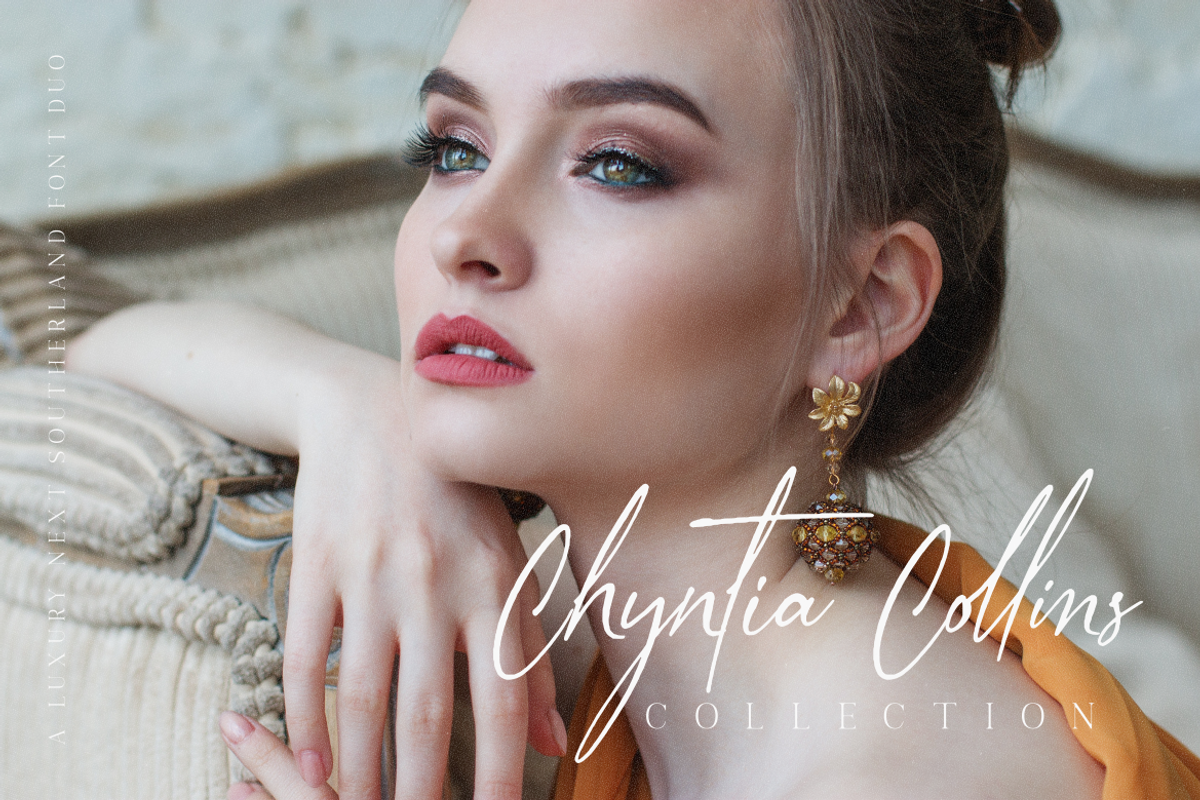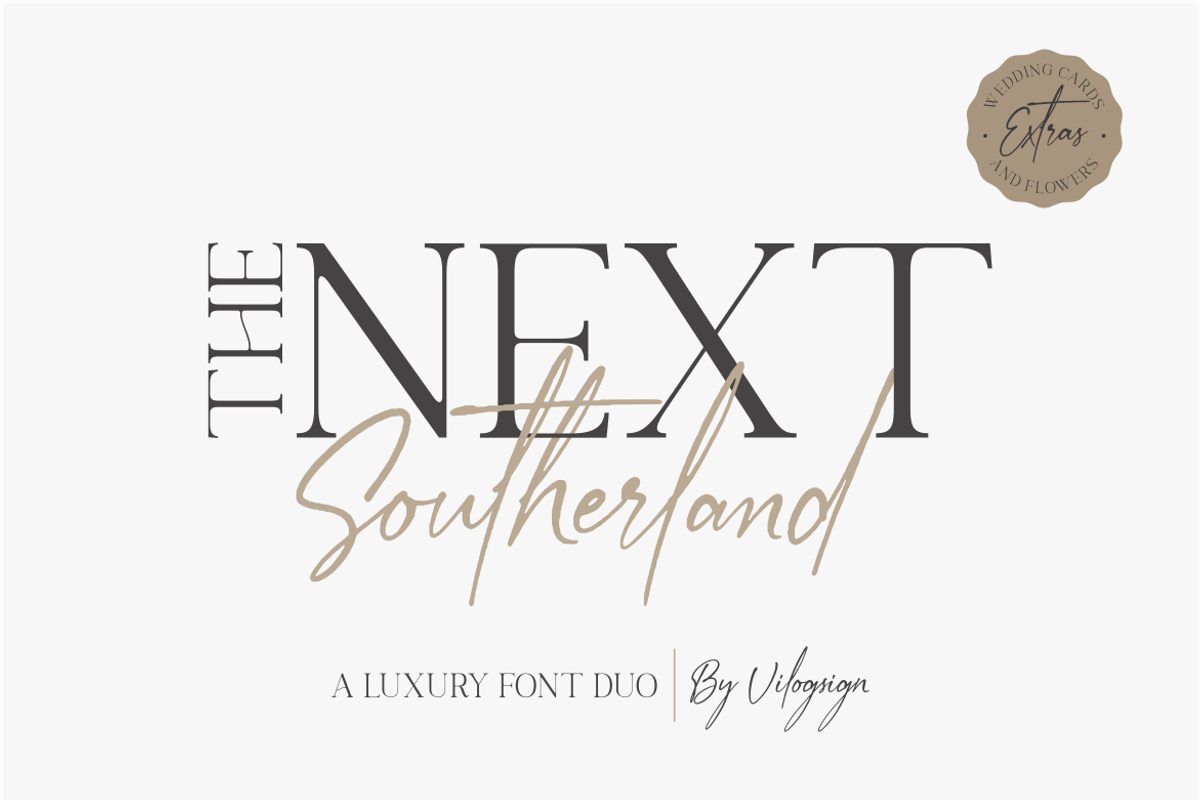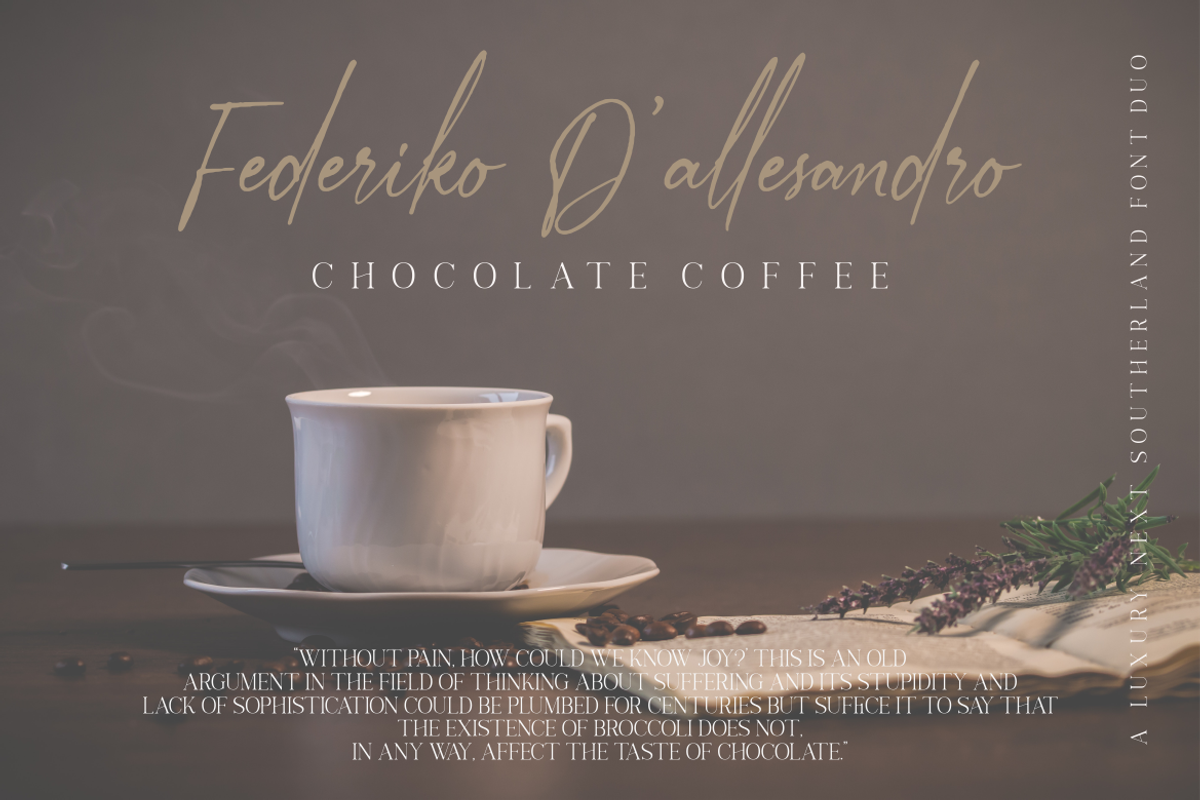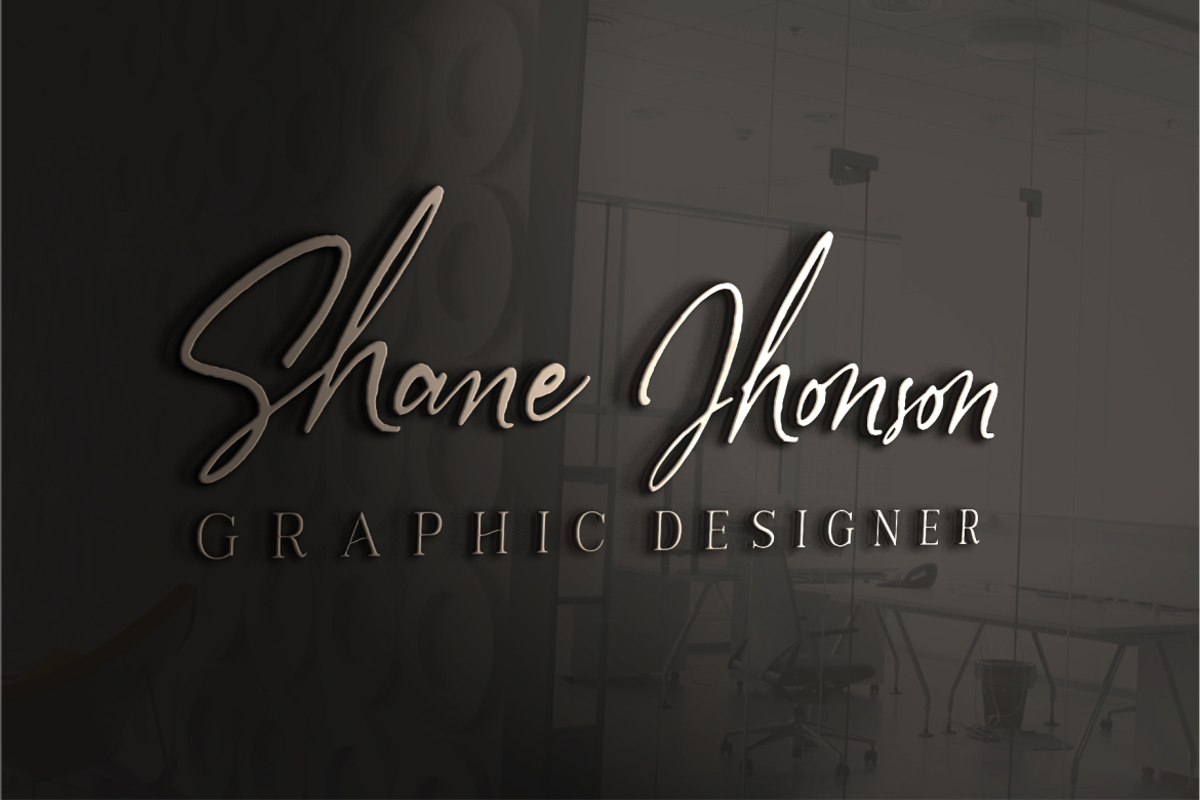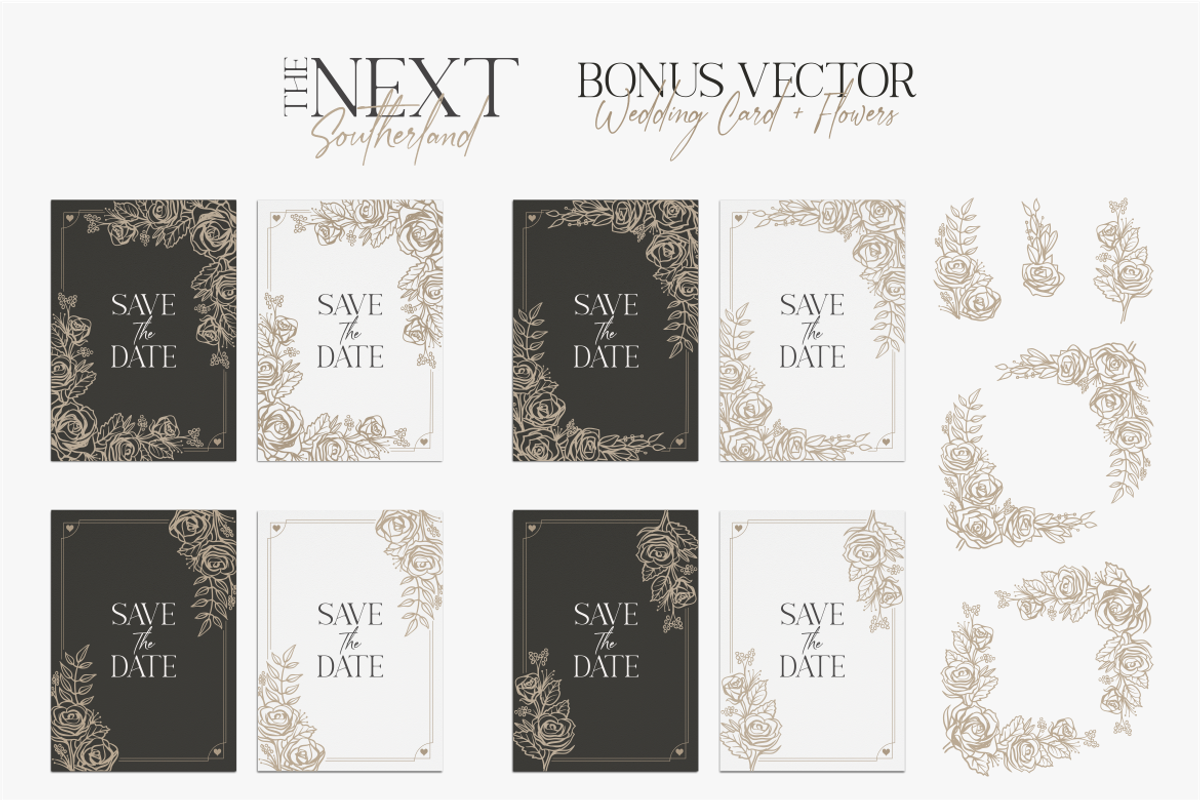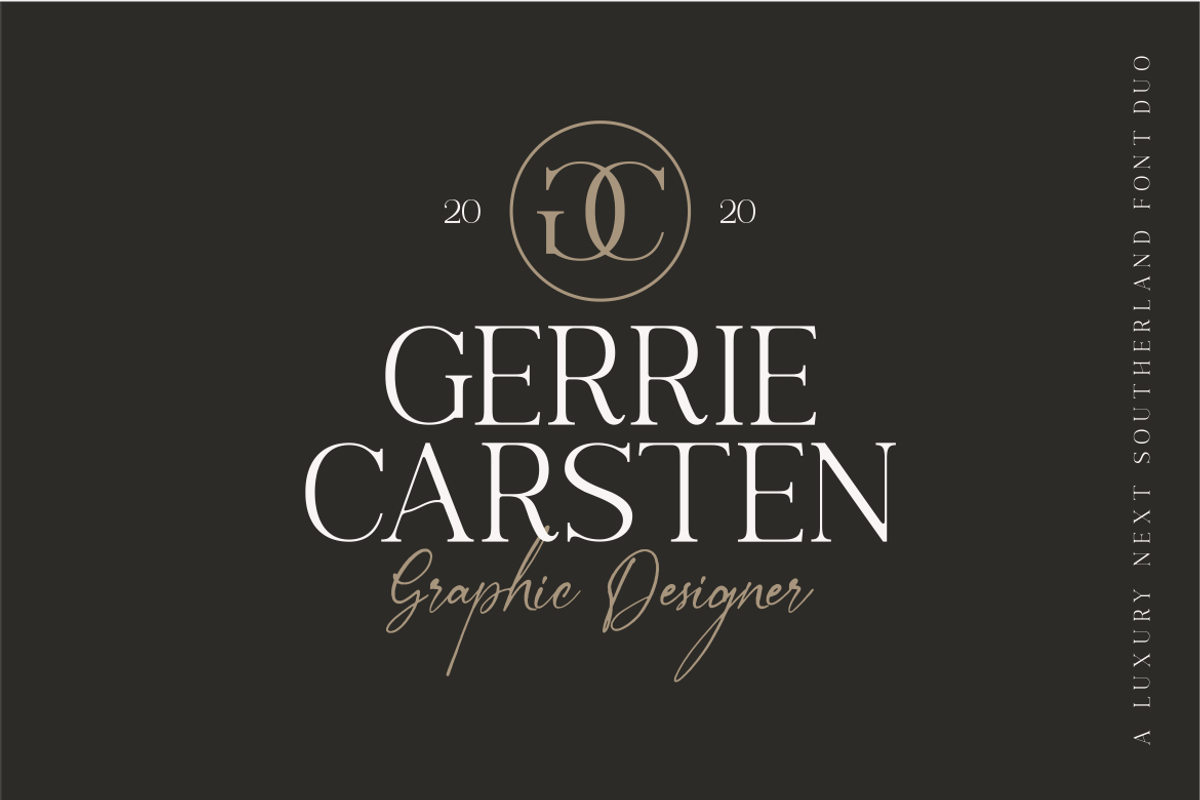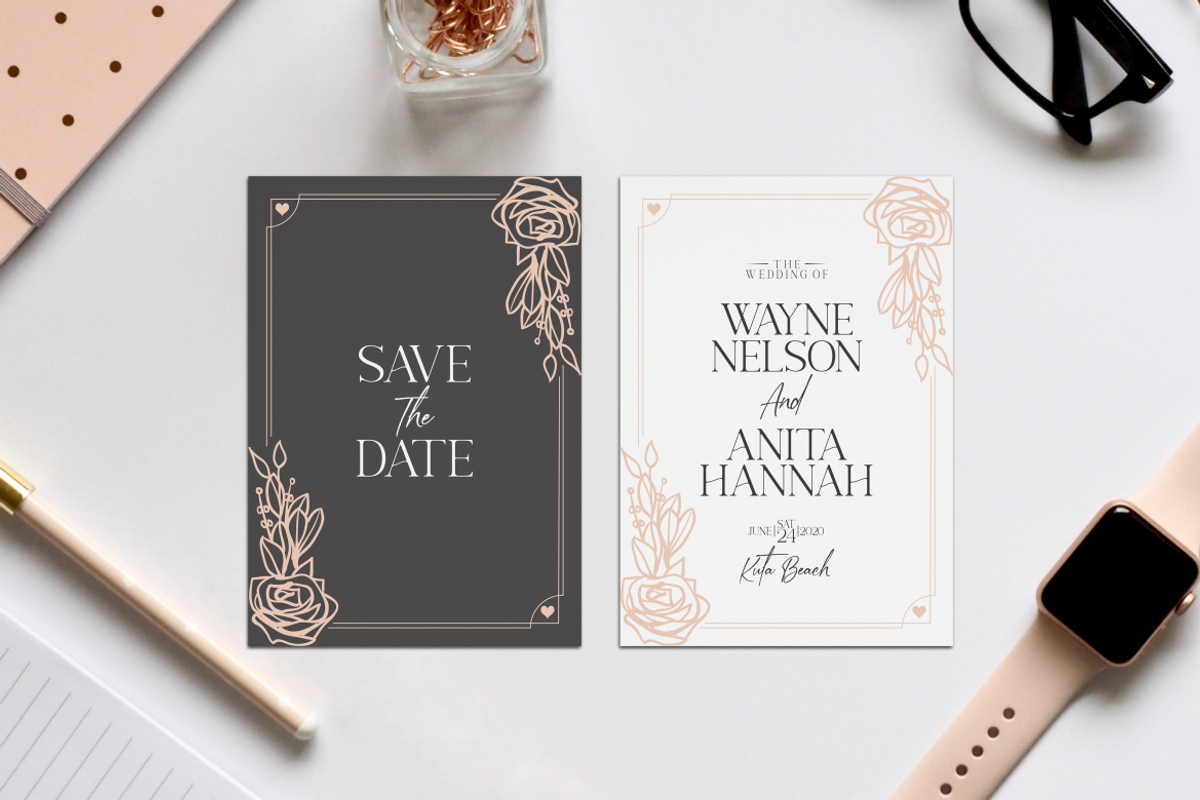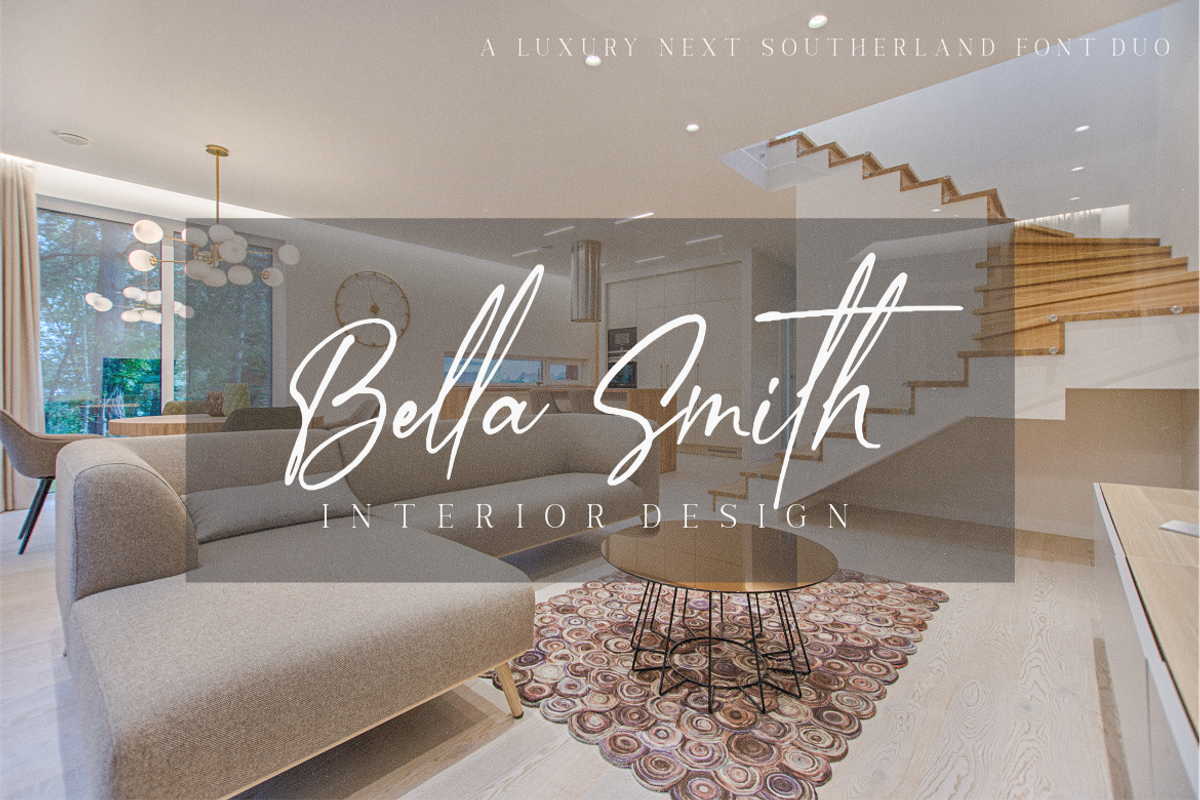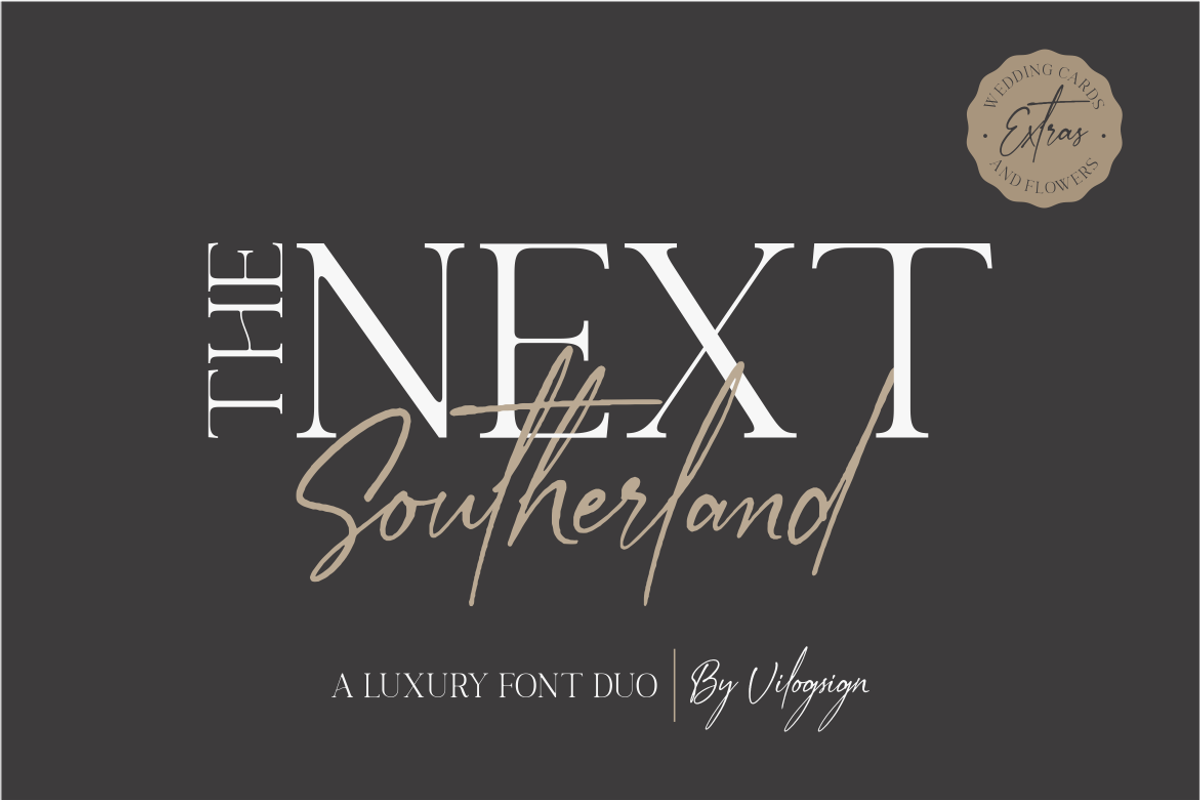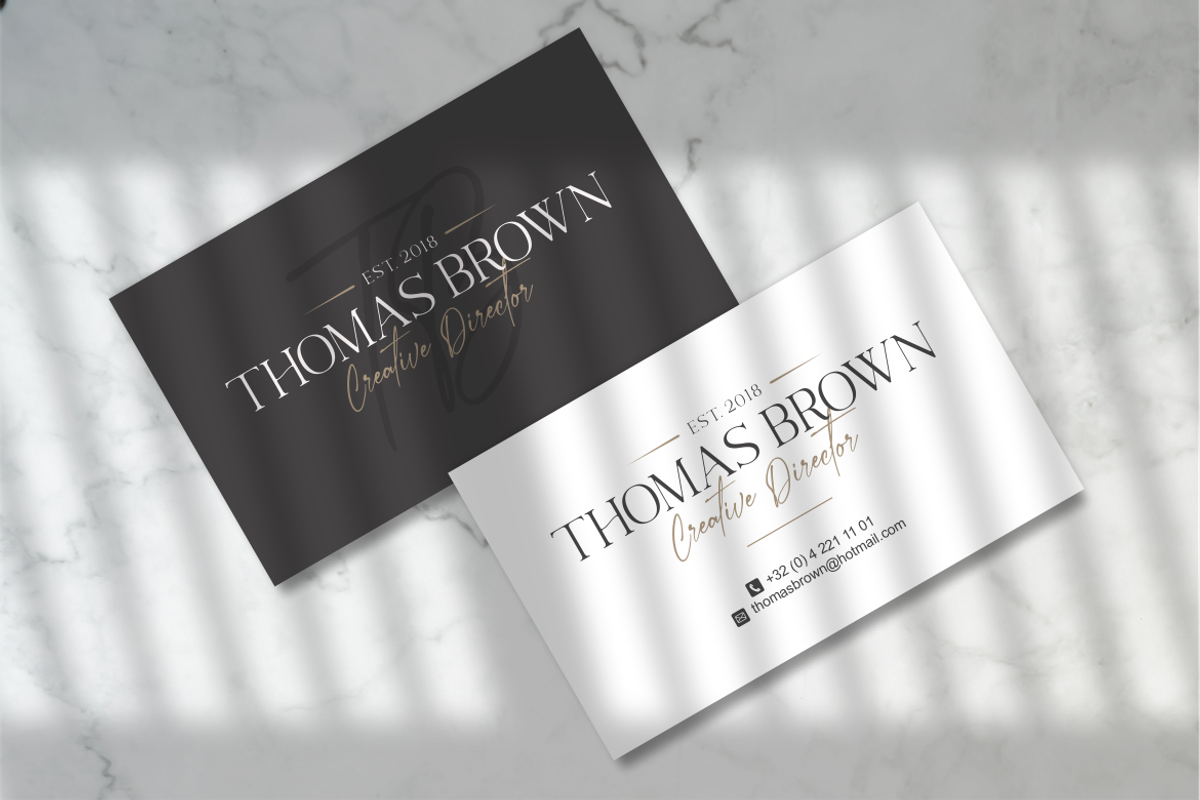
The Next Southerland Font Duo
a Modern, rustic, textured, A teture typeface script font with lowercase letters alternatives and 30 ligatures to complete your needs. With add extra wedding card vector and flowers vector make your job to be complete and easy. This font is very good with multilingual support. With built in Opentype features, this script comes to life as if you are writing it yourself.
I make this font with lovely so make this font look natural, modern, classic and elegant, very suitable to make a branding, magazine, fashion, quotes, logo, packaging, and other.
- Ligature and Alternative